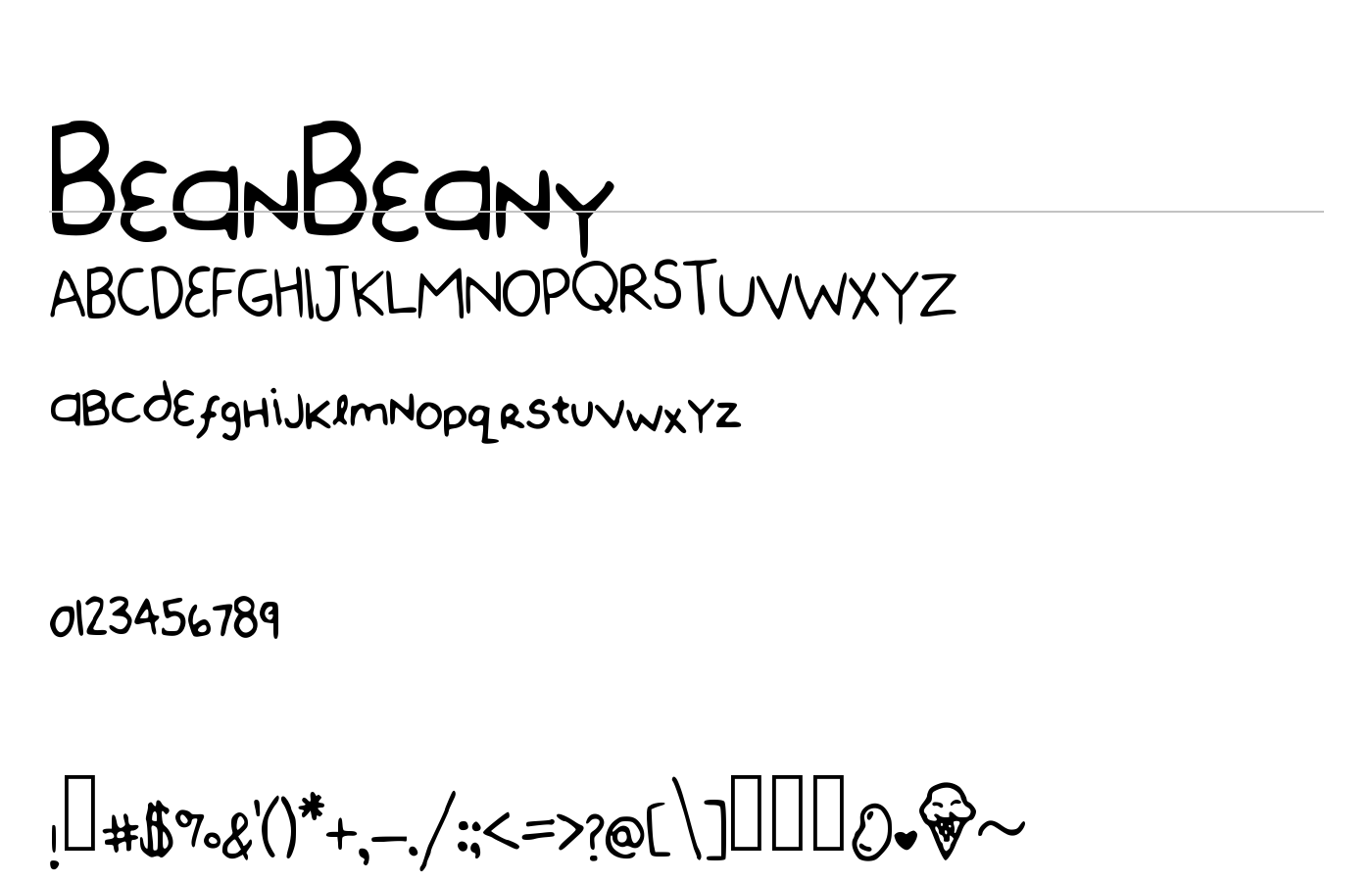
BeanBeany is a playful, casual handwritten sans serif font with a quirky and friendly style. Its irregular shapes and varying stroke widths give it a natural, informal feel, making it ideal for fun, creative projects or children’s designs. This font works well for logos, invitations, and playful branding where a warm, approachable vibe is desired.
BeanBeany Font
About BeanBeany Font